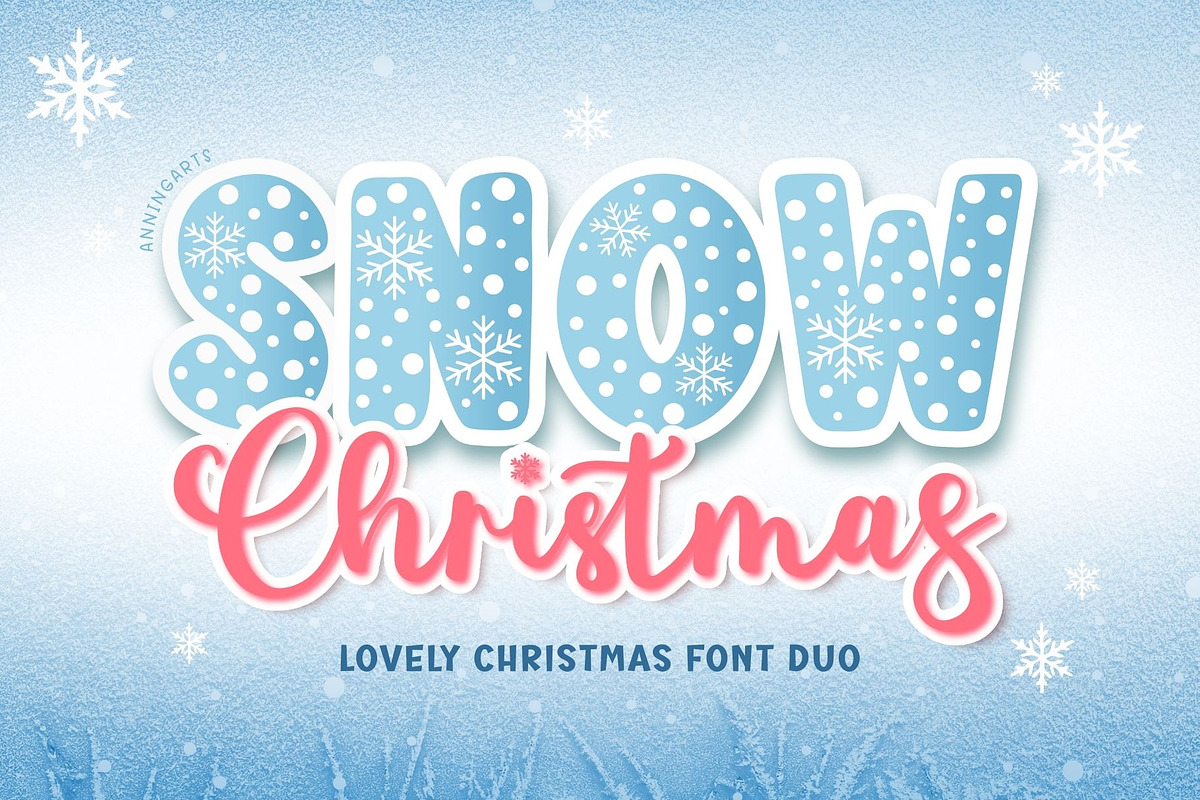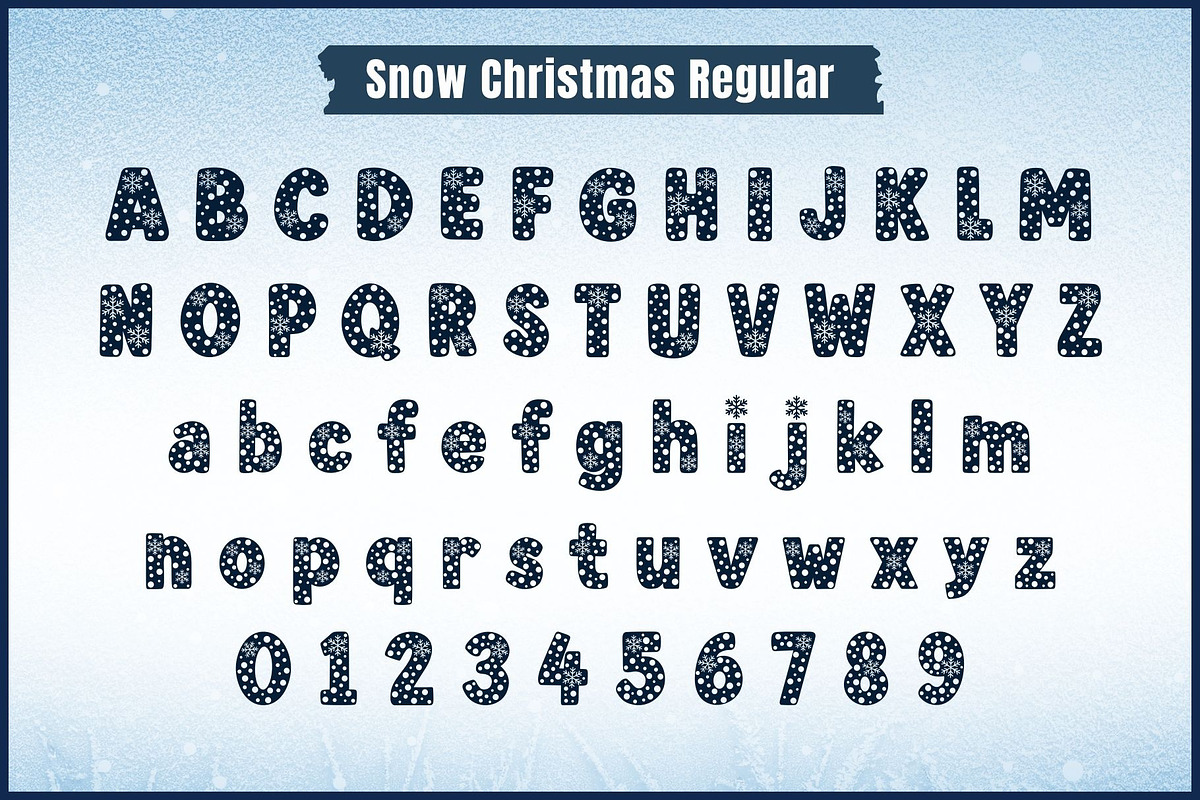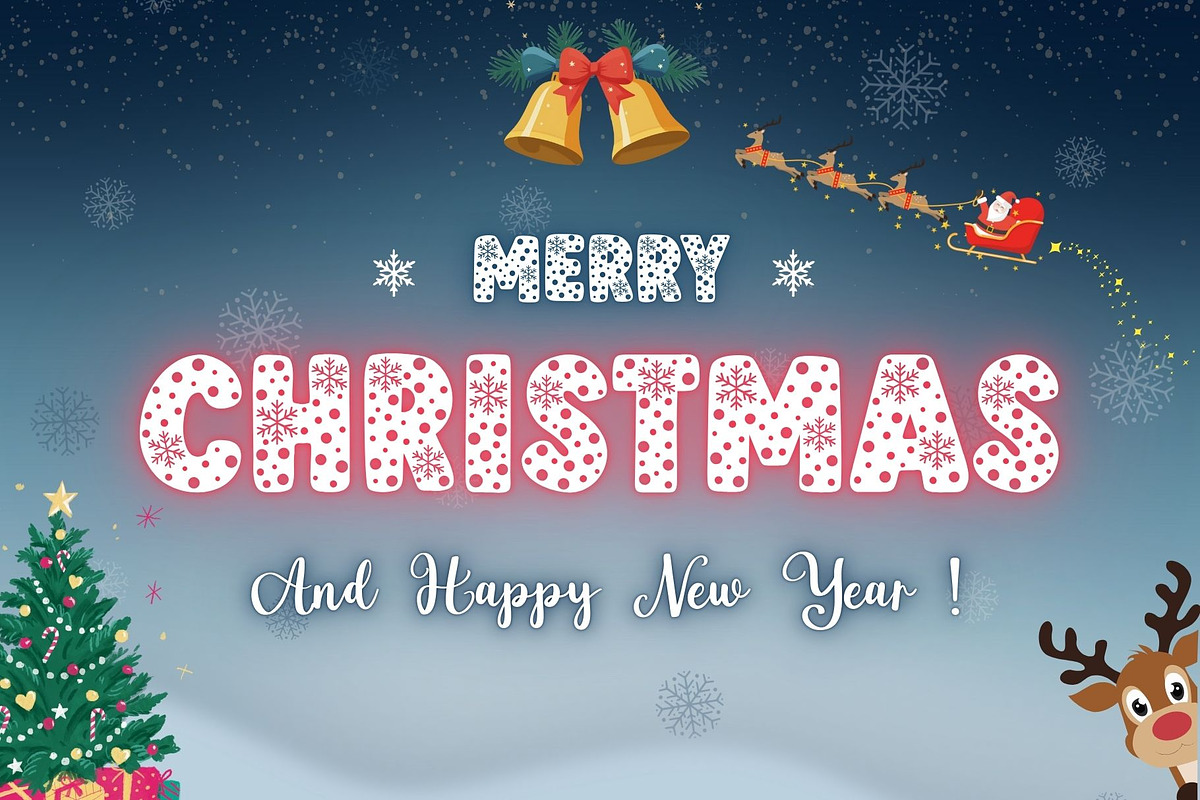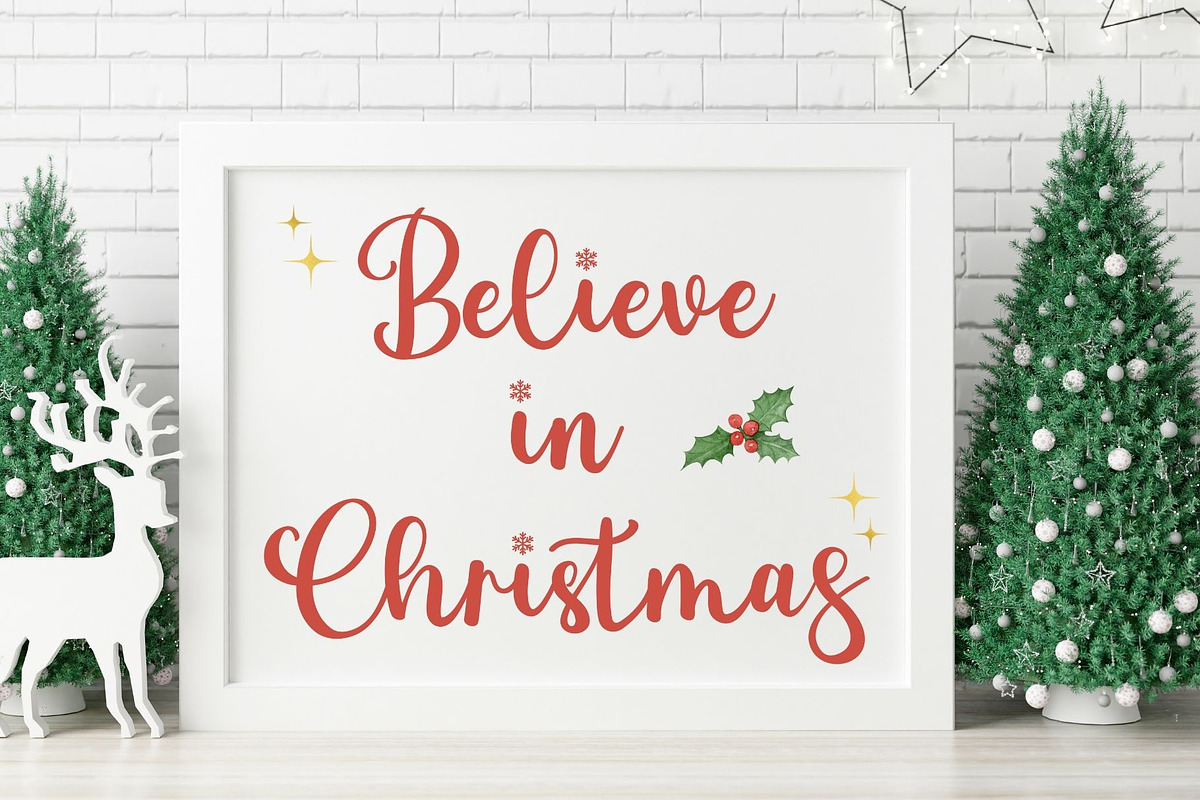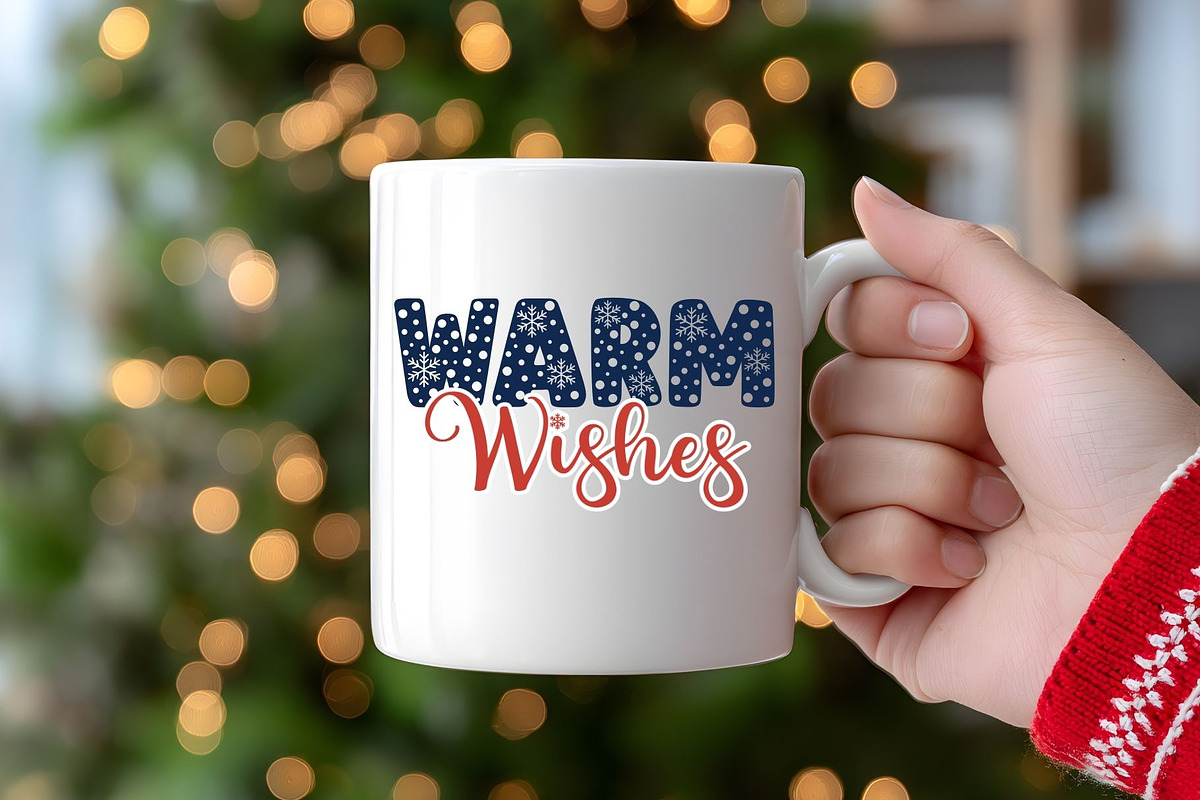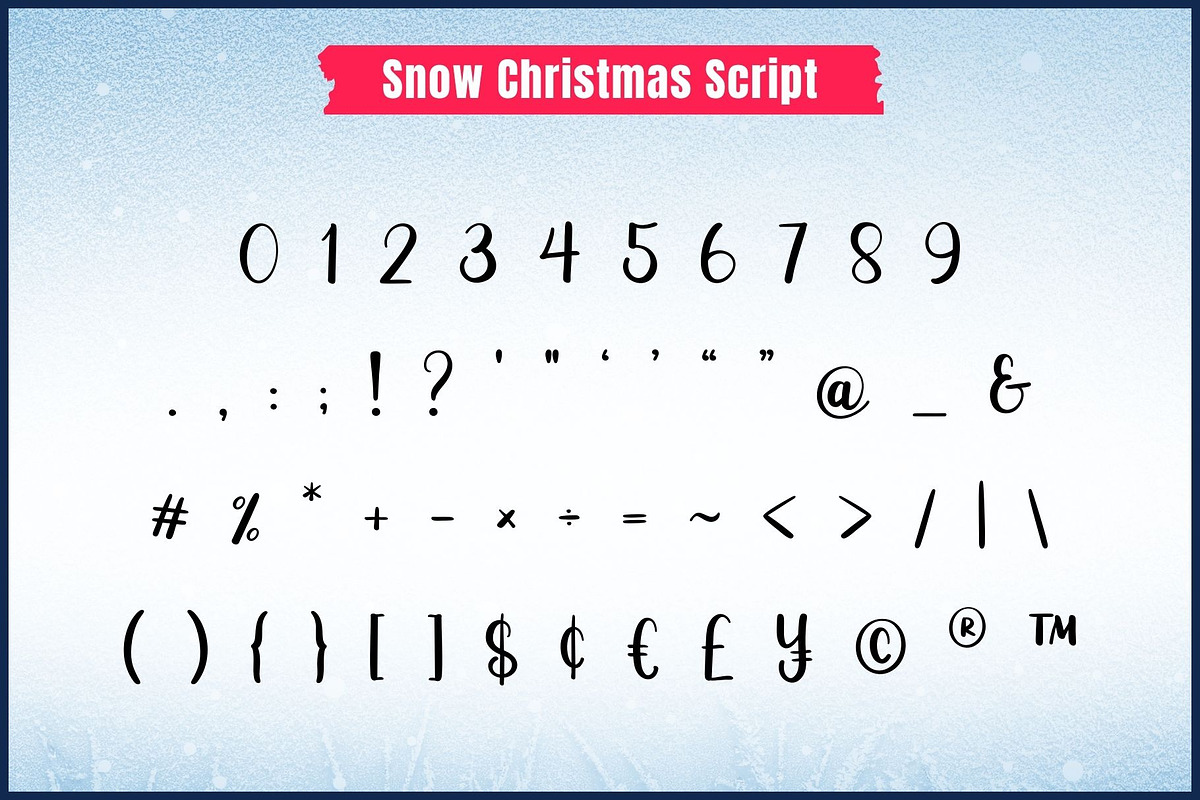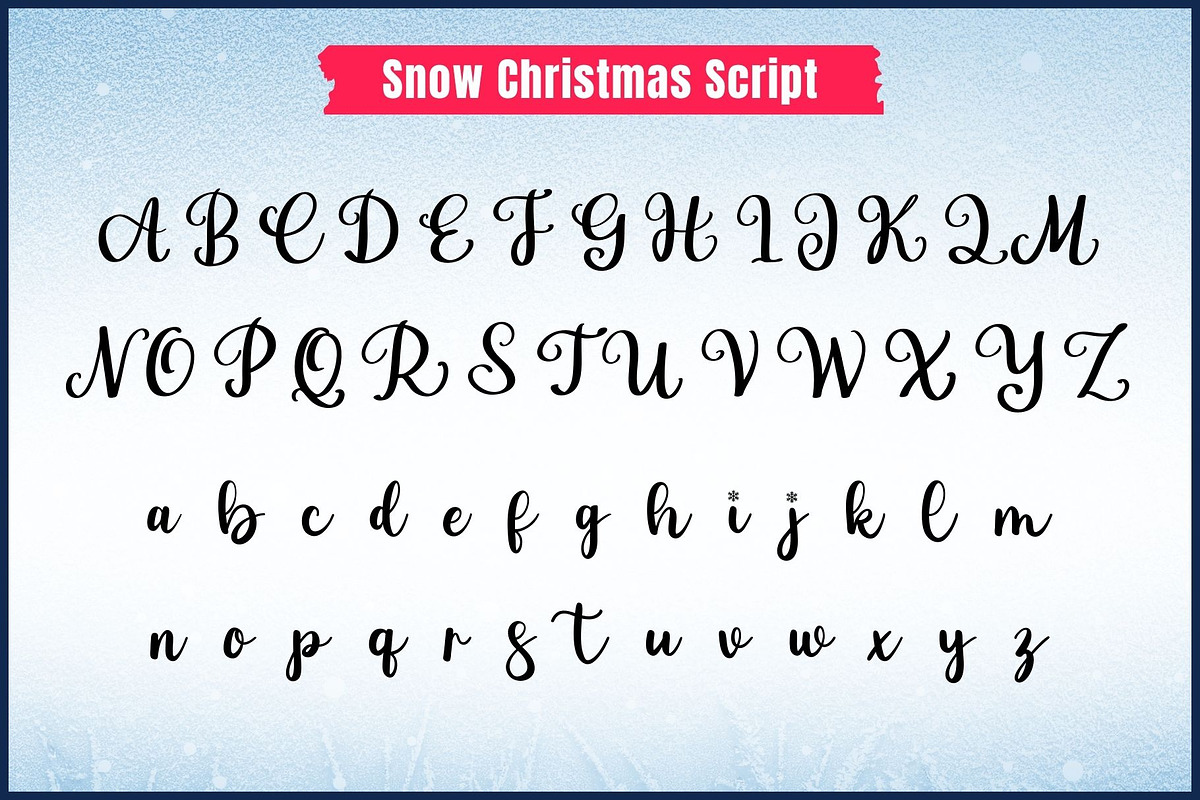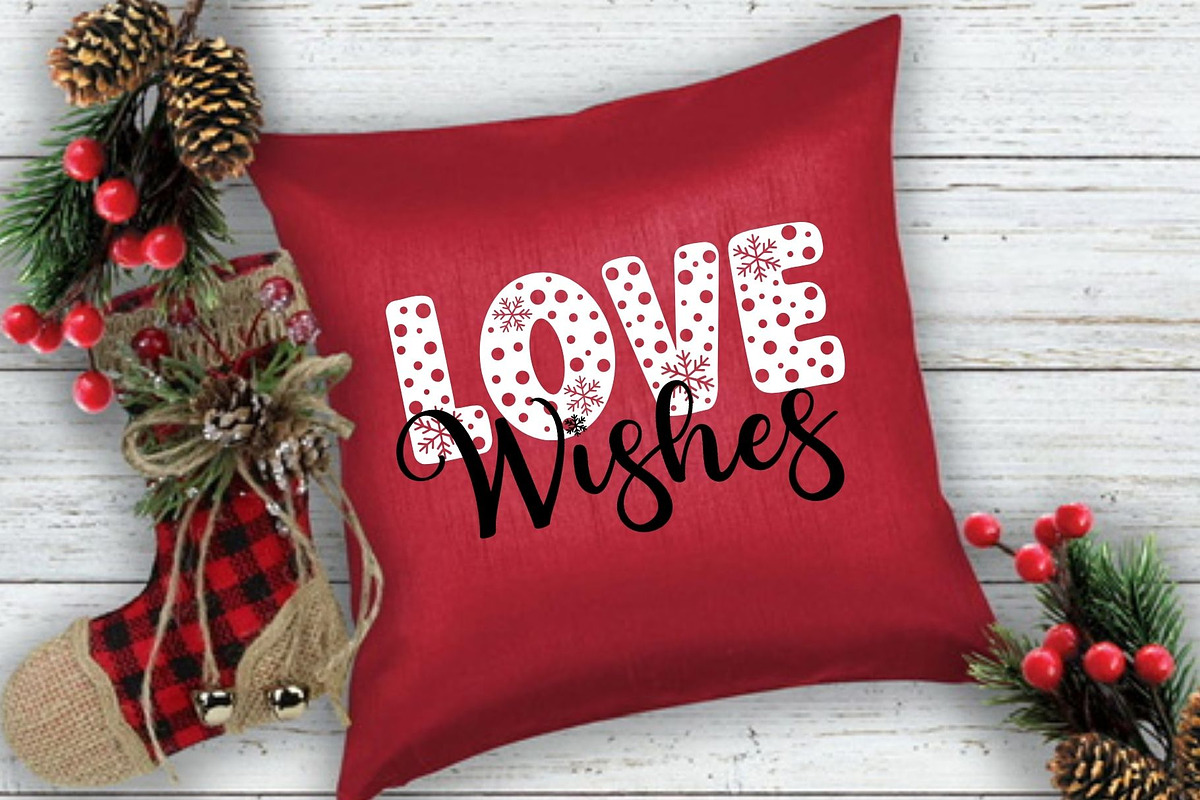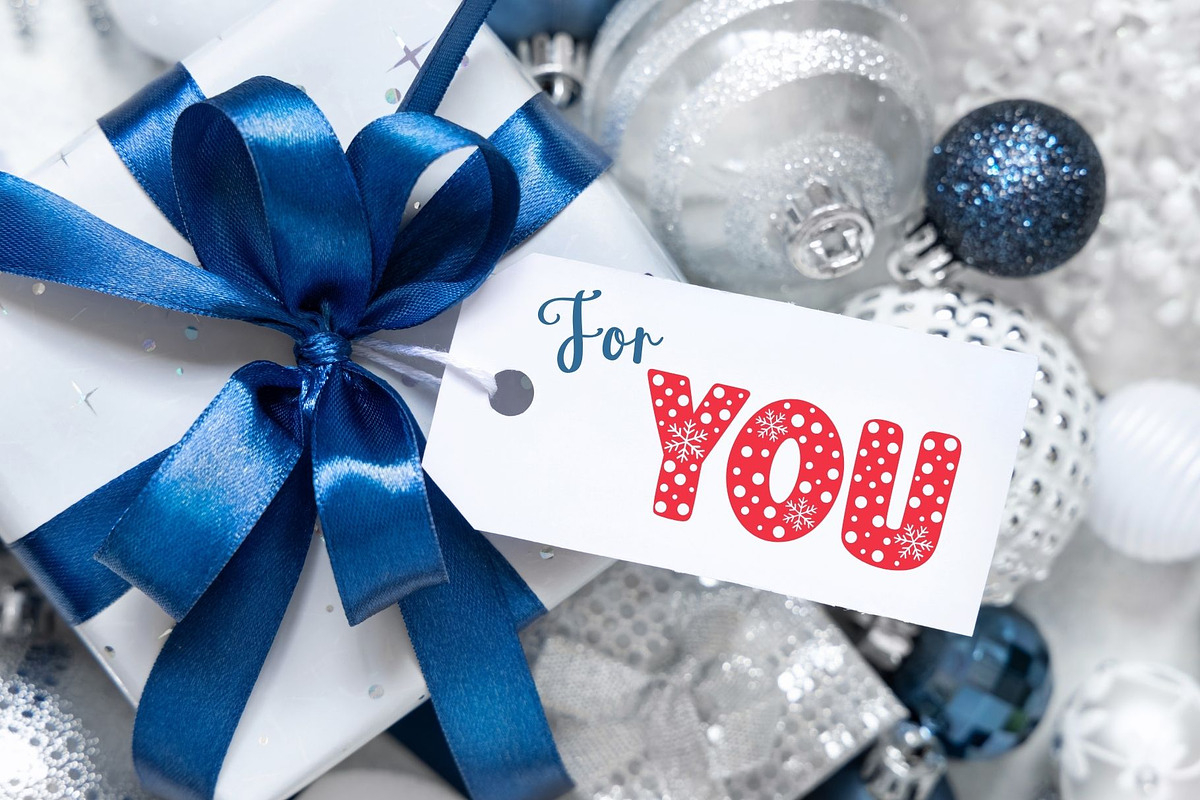
Snow Christmas Font Duo
Snow Christmas Font Duo is a festive holiday font set that includes a playful snow-pattern display font and a soft handwritten script. Perfect for Christmas mockups, greeting cards, mugs, t-shirts, gift tags, prints, and winter branding.
The display font features cute snowflake and polka-dot details, while the script adds a warm handwritten feel for pairing headlines and messages perfectly together.
🎄 Ideal for:
- Christmas mockups & product designs
- Gift tags, cards & invitations
- Mugs, t-shirts & tote bags
- Posters, wall art & social media
- Kids crafts & holiday worksheets
- Stickers & printable designs